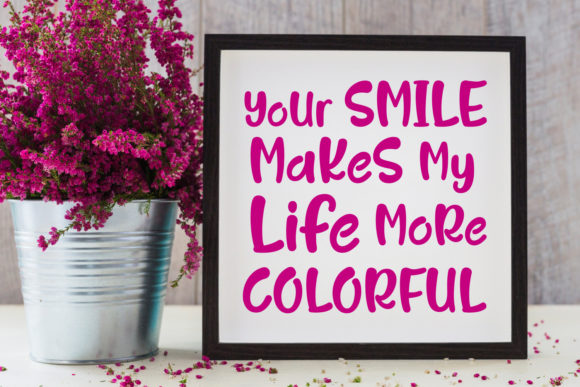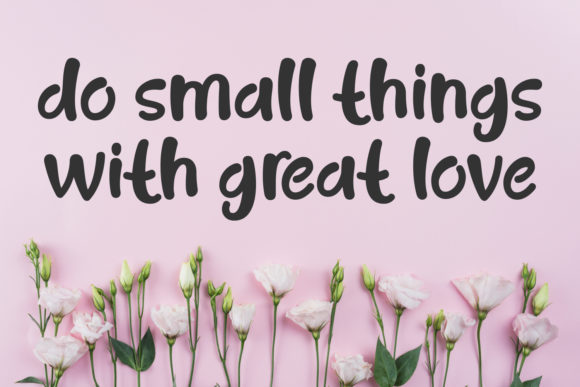
Sunshine with You Font
About Sunshine with You Font
Sunshine With You is a cute and whimsical handwritten font with a unique touch. It will easily inspire any new design project!